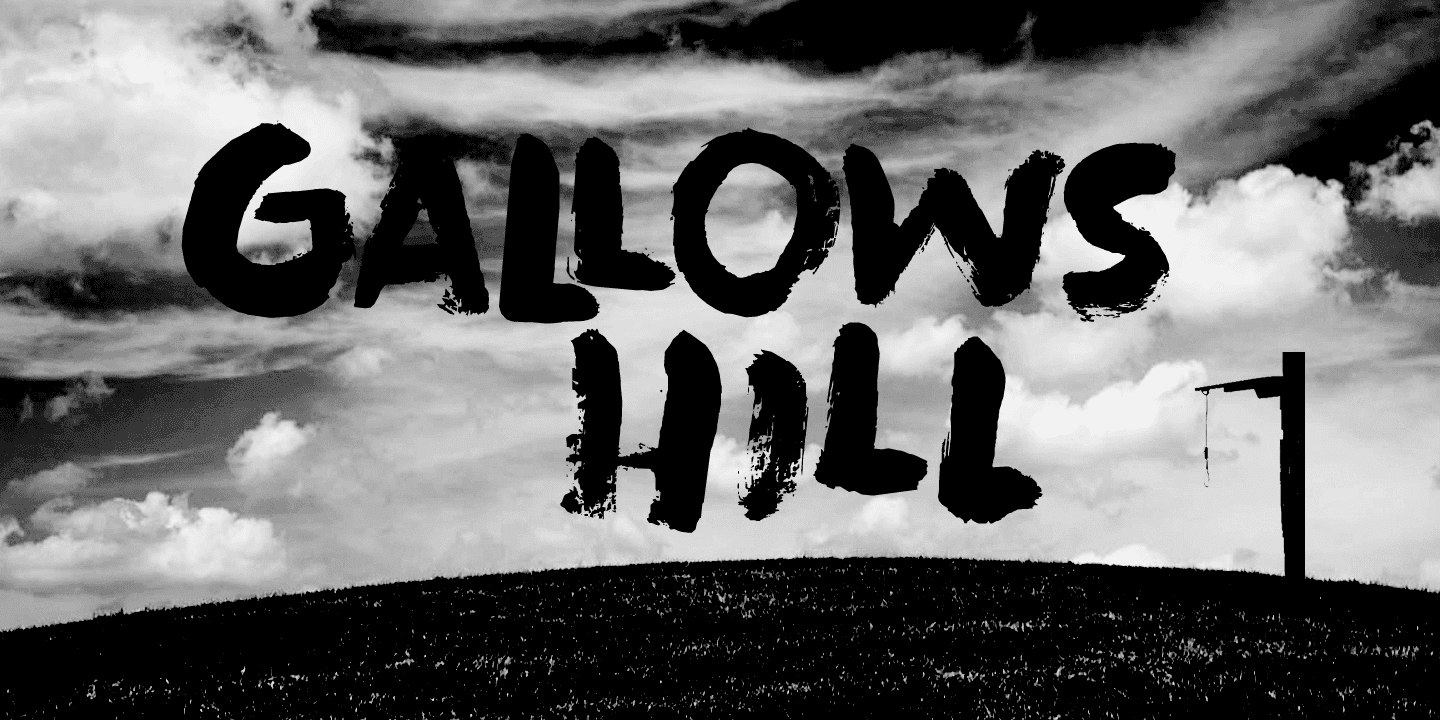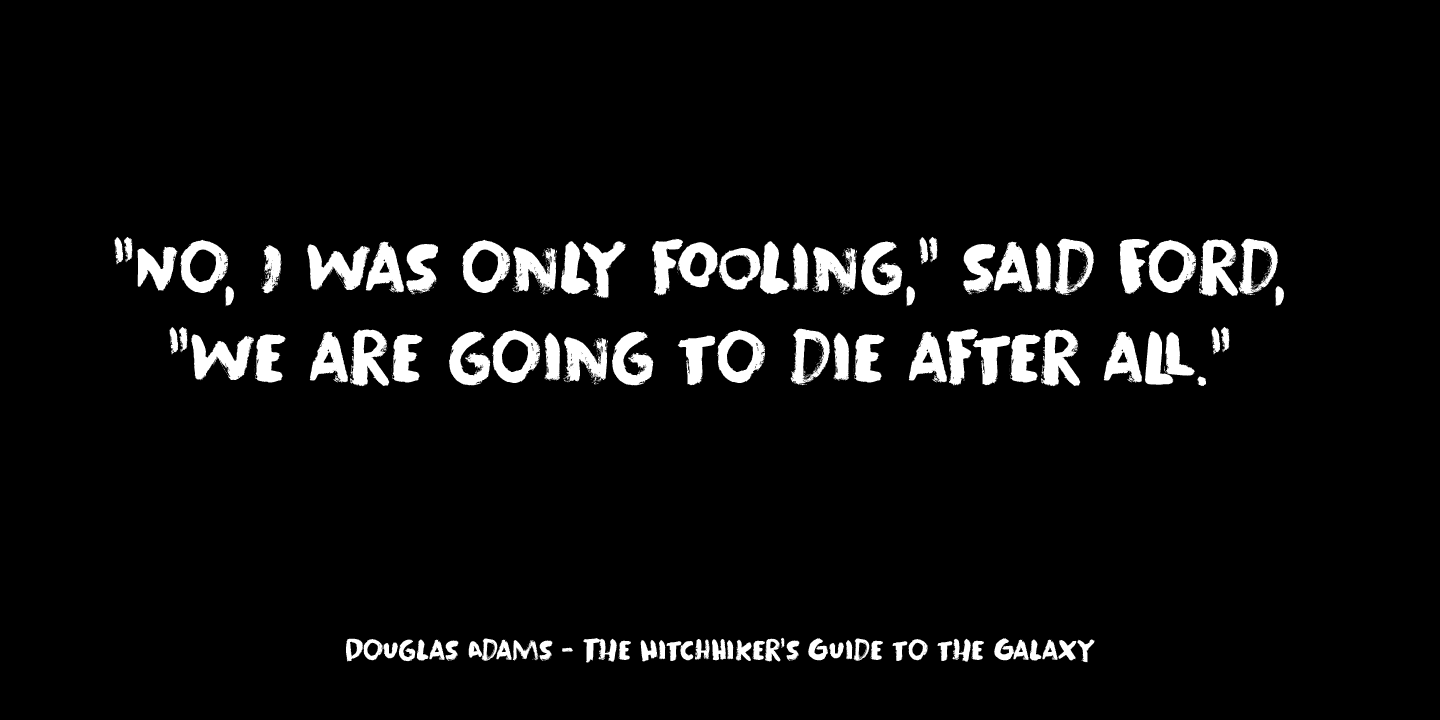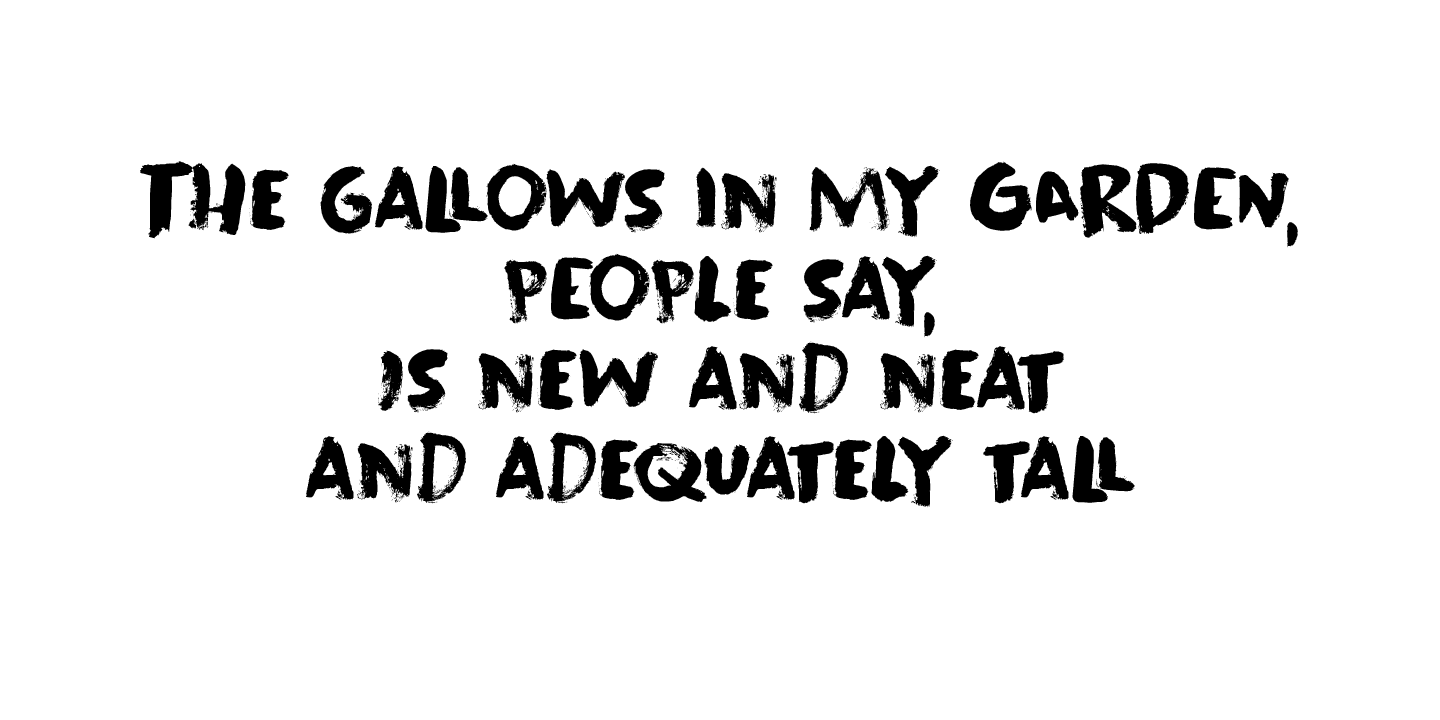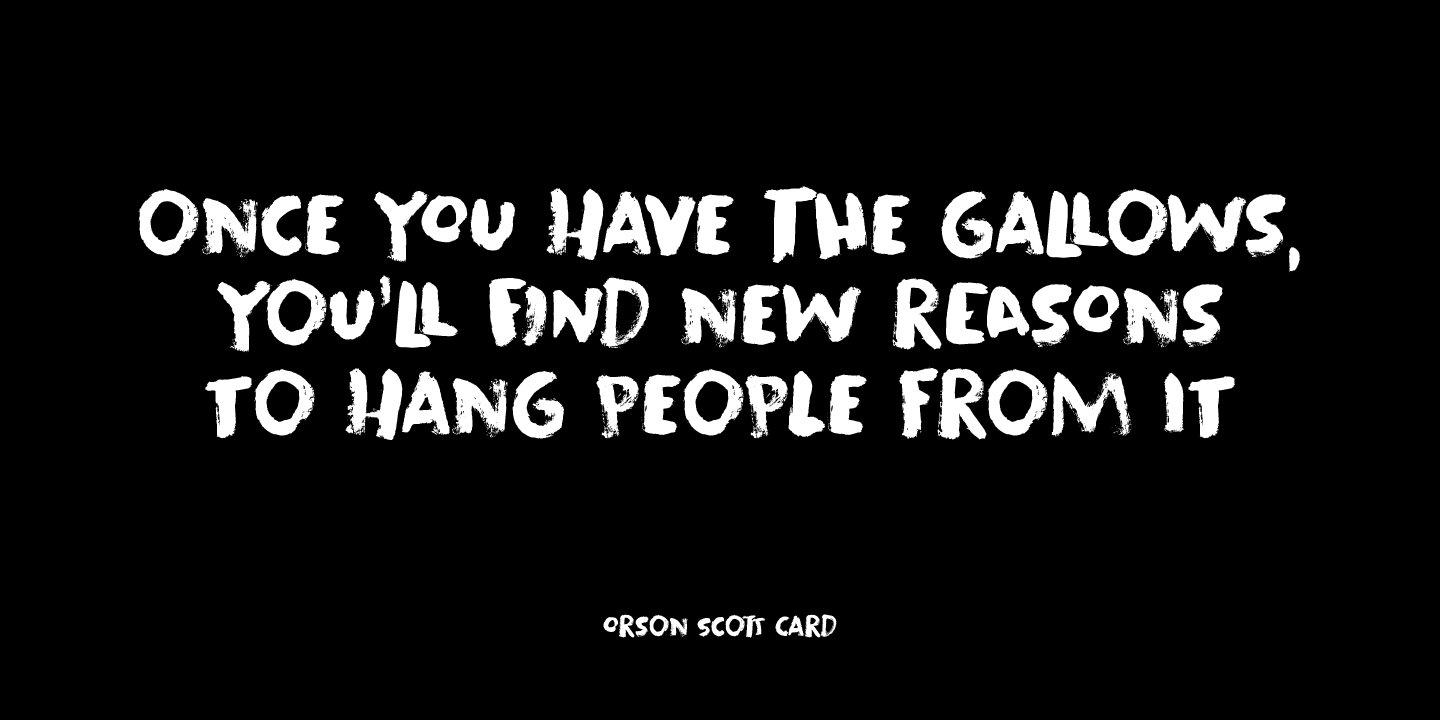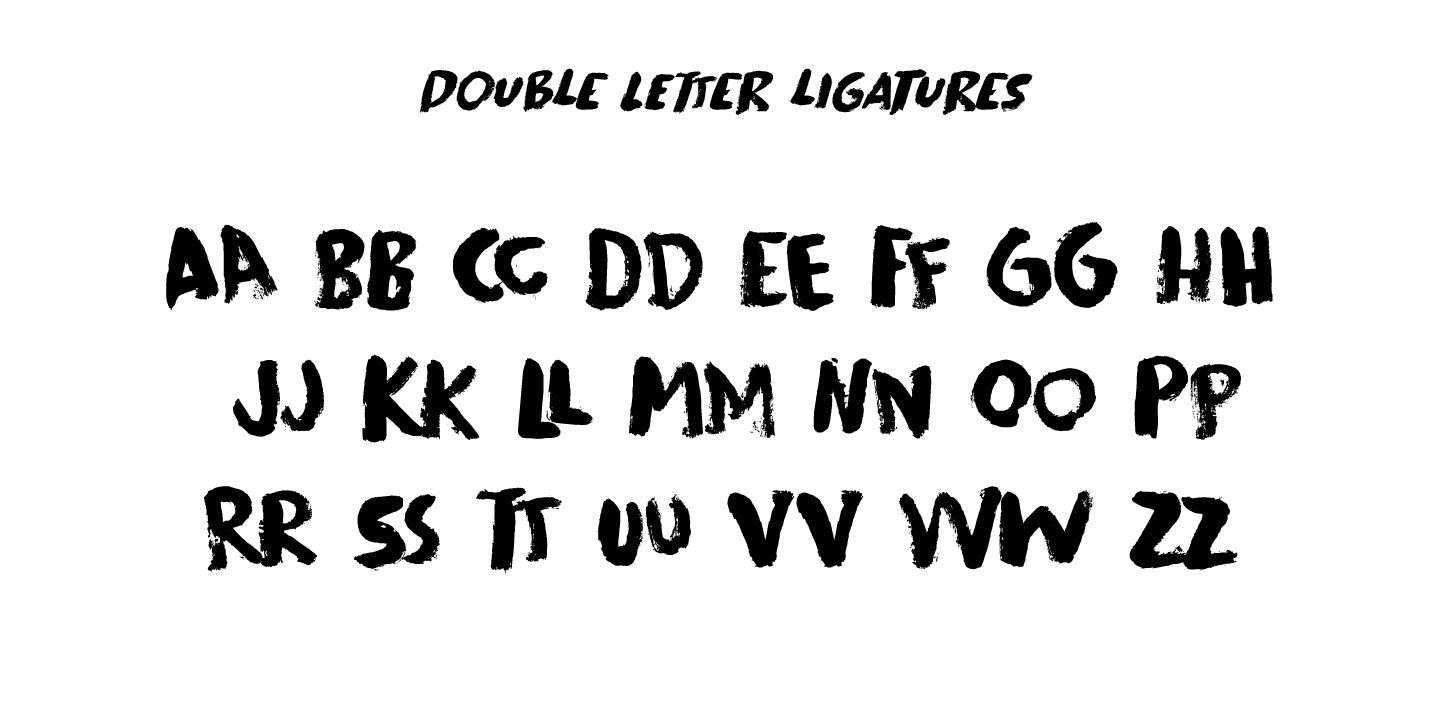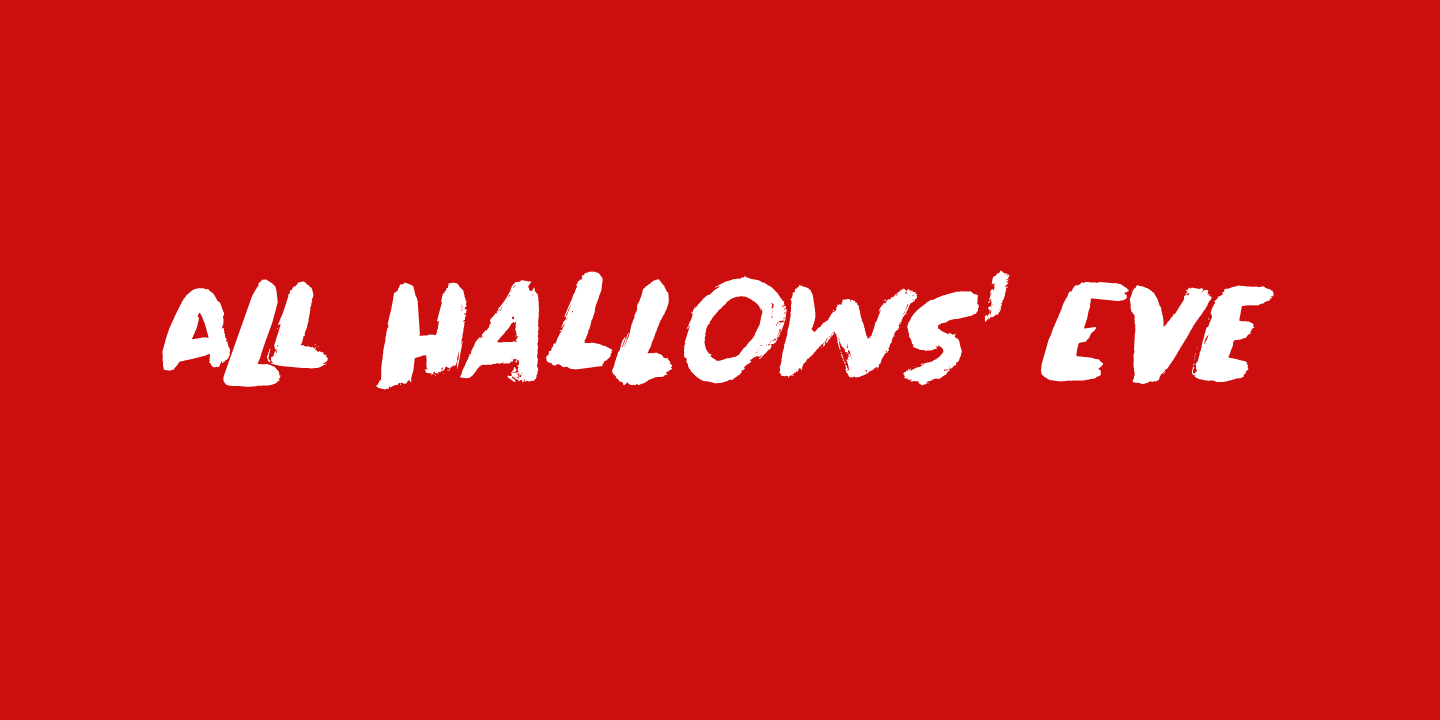
I am creating new fonts for my Halloween collection and Gallows Hill is the latest one. It was made using a cheap brush, gouache mixed with Chinese ink and paper. The result is a very messy, rough and scary font.
As a bonus, I have added double letter ligatures for the lower case.